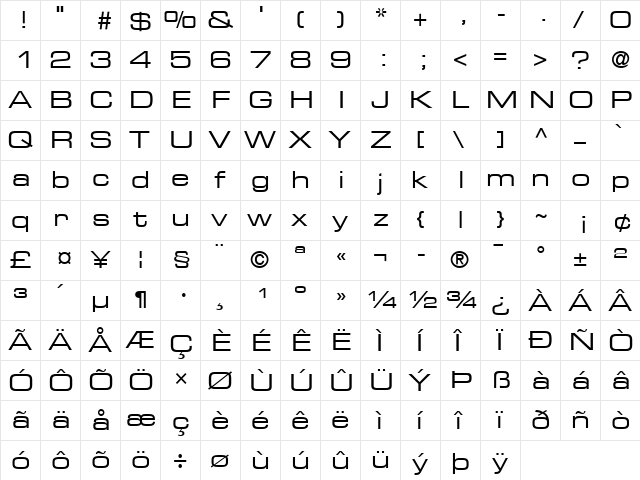
Eurostile Extended #2 Regular
Design Context for Eurostile Extended #2 Typeface
Eurostile Extended #2 is a composed and adaptable typeface that performs quietly and consistently across a wide range of design contexts.
Pro Tip: Use Eurostile Extended #2 in both headline and body roles to test its range before committing to a single application.